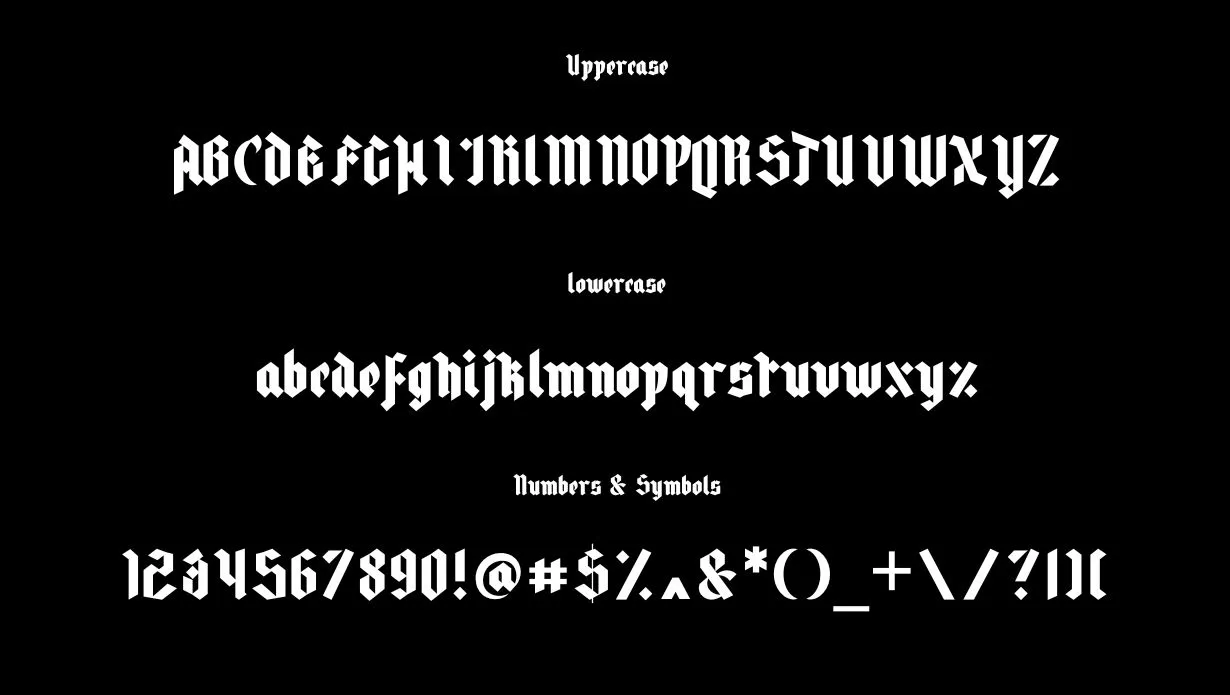
Rowan Royal Font exudes regal elegance with its refined and sophisticated appearance.
If you’re designing for luxury brands, upscale events, or projects that demand a touch of opulence, Rowan Royal Font is the perfect choice.
Rowan Royal Font Family
It adds a sense of prestige and grandeur to your designs. When your aim is to elicit the best possible response from your audience, combining the cinga font with this font family creates a powerful pairing.